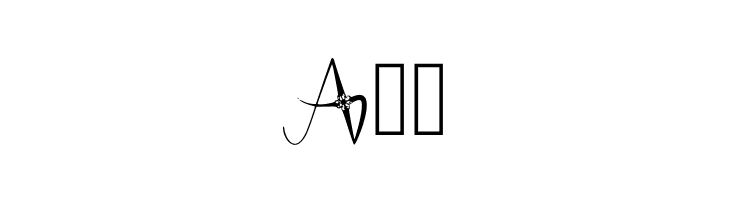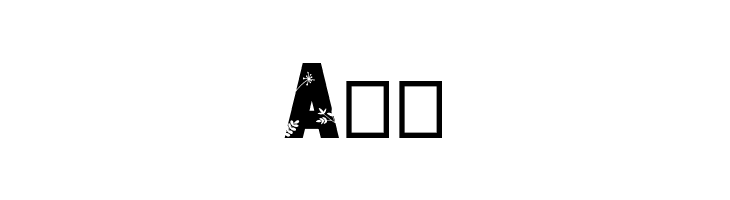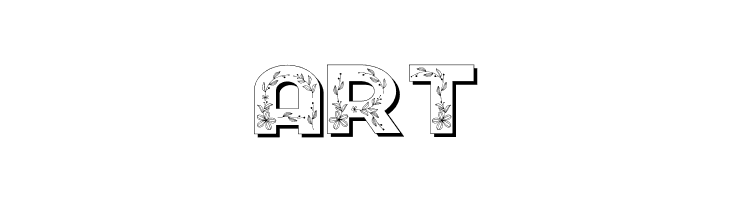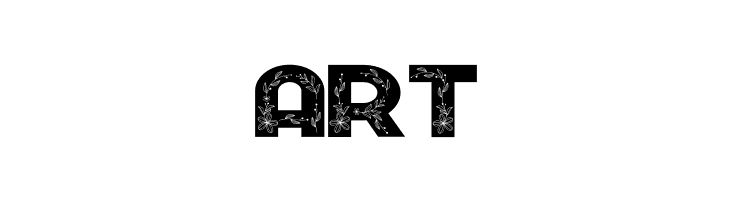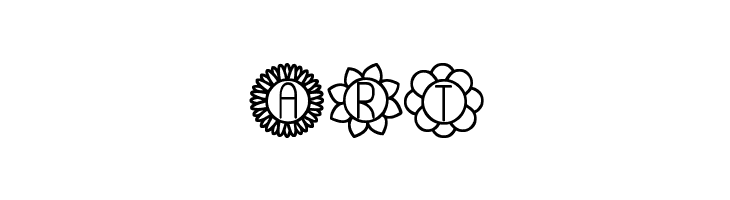
A decorative font with intricate floral patterns enhancing each character.
A decorative font with floral patterns integrated into the outline of each character.
A bold, decorative font with intricate floral patterns in each character.
A bold decorative font with intricate floral patterns and a shadow effect.
Ornamental floral stencil font with decorative botanical motifs.
An elegant, floral-embellished decorative font with artistic flair.
A bold, decorative font with floral patterns in uppercase letters.
A decorative font with letters encased in intricate floral patterns.
A bold, decorative font with intricate floral patterns in each character.